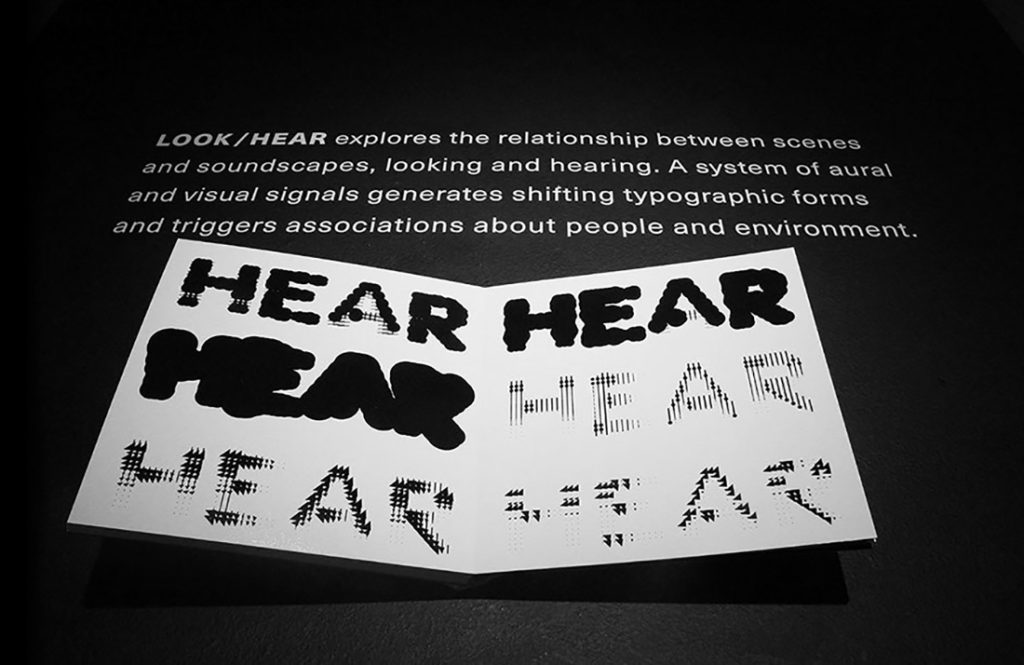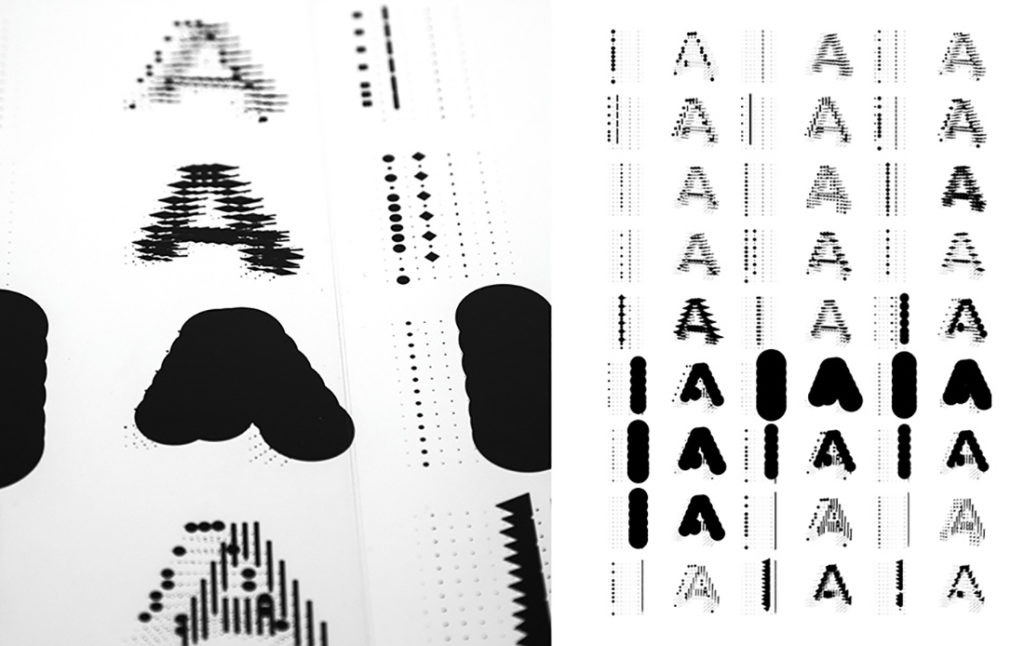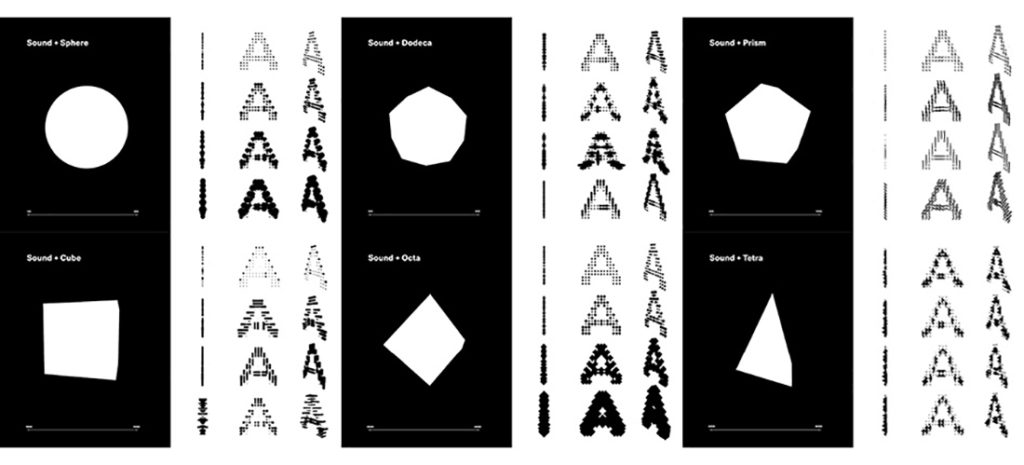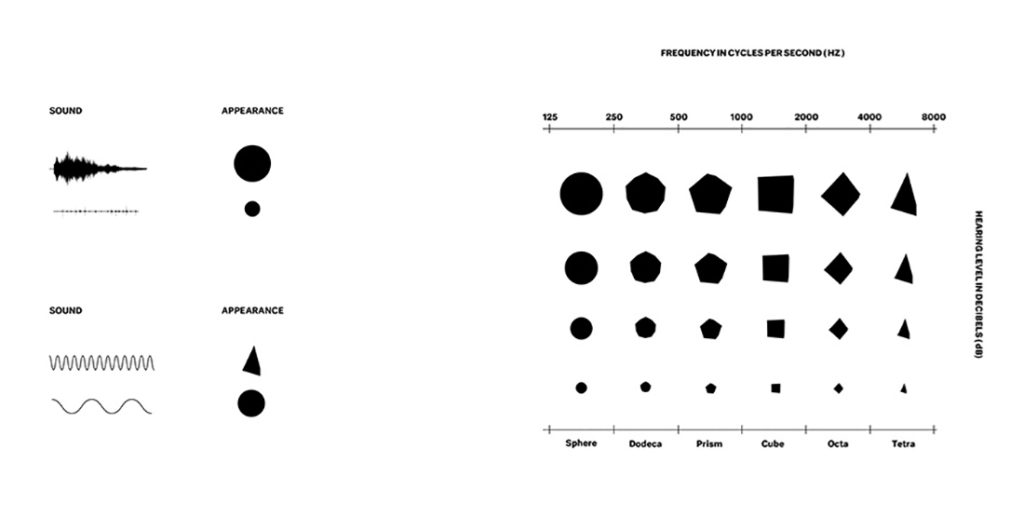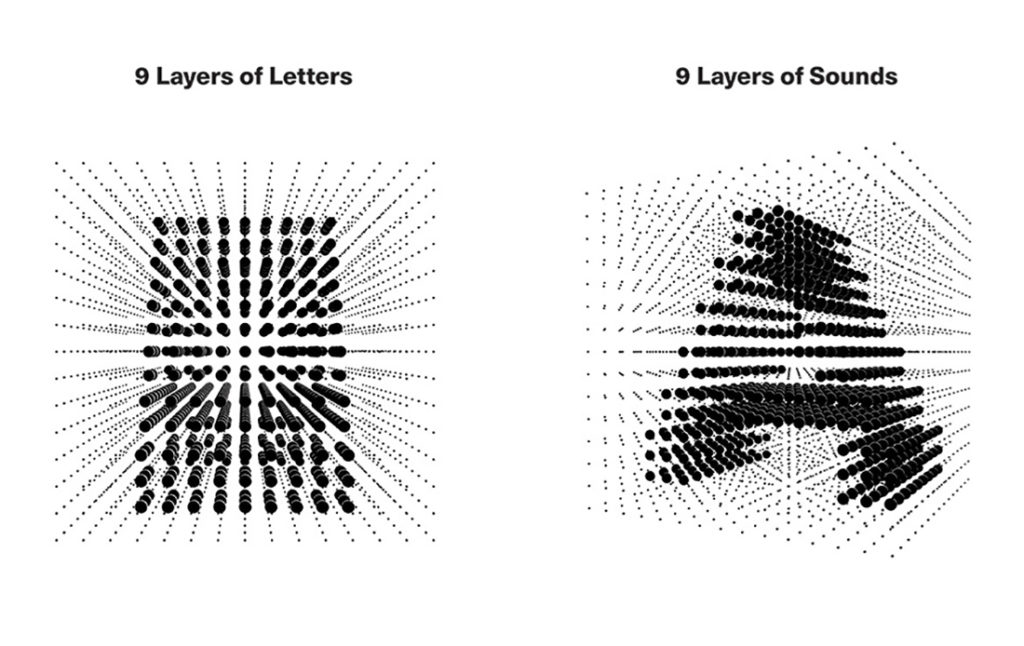
Name: LOOK/HEAR
Designer: Ran Zheng
Back story: Ran Zheng’s thesis project LOOK/HEAR uses sound to affect the shape of letterforms, creating an astonishingly rich and complex three-dimensional typographic system. Her letters respond to a range of ambient recordings made in New York City—from the relative stillness of Central Park to the clamor of the subway—as well as to aural input from visitors to her thesis exhibition. “As a graphic designer from China, I’m not familiar with [Latin] typeface design and typography,” says Zheng, a 2016 graduate of Maryland Institute College of Art’s MFA graphic design program. “When I began to think about my thesis project I wanted to explore typeface design and synesthesia, and the relationship between scenes and soundscapes, looking and hearing. I referenced this quote by Goethe, ‘I call architecture frozen music,’ which made me wonder if sound data could be frozen into letterforms to form a typeface. What would that typeface sound like? What would it look like in specific sound scenes?”
Why’s it called LOOK/HEAR? What did we just say?
What are its distinguishing characteristics? Zheng drew each letter on a 15” x 15” grid, then rendered it with 3D software into 9 layers containing 9 different sound channels. The 3D geometry creates a visual system where different sounds can affect different layers of the letter. When the layers are mixed together and animated, the letters change style in real time, responding to the sound input. “In order to show a variety of dynamic letterforms, I chose five sound scenes from our familiar everyday life: a park, a street, a café, a subway, and an office. And then I selected the pair of words ‘look’ and ‘hear’ as the letters that would react to the environmental sounds,” she says. “When you hear the sound from the animation, you see the word ‘LOOK,’ and the title is ‘Scene 1.’ Then you see the word ‘HEAR,’ and the scene is identified as a ‘Park.’ This is a way to trigger associations about aural and visual signals, sight, and hearing.”
What should I use it for? You can’t, because it isn’t commercially available. But as inspiration for new ways to think about type separate from its visual qualities, you’re in excellent company.
Who’s it friends with? If Janet Cardiff is not LOOK/HEAR’s BFF yet, it’s only a matter of time.